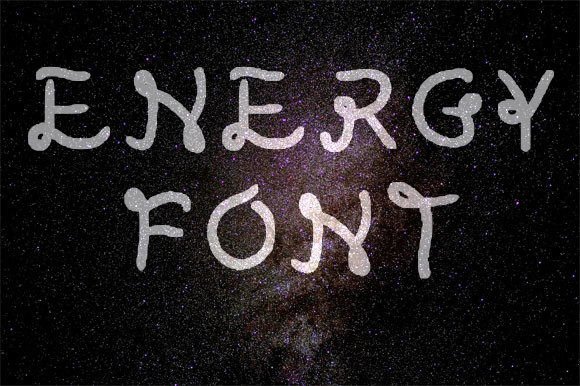
Introducing Energy Font: The Perfect Handwritten Touch for Your Creative Projects
Are you tired of using the same old fonts for your creative projects? Do you want to add a personal touch that sets your work apart from the rest? Look no further than Energy Font, an authentic and charming handwritten font that’s sure to bring a unique and creative vibe to your designs. In this article, we’ll take a closer look at Energy Font, its features, and how you can use it to take your projects to the next level.
What is Energy Font?
Energy Font is a beautifully crafted handwritten font that’s designed to add a personal note to your creative projects. With its authentic and charming style, this font is perfect for designers, crafters, and anyone looking to add a touch of personality to their work. Whether you’re creating a logo, a poster, a social media graphic, or a website, Energy Font is the perfect choice.
Key Features of Energy Font
So, what makes Energy Font so special? Here are some of its key features:
- Authentic and Charming Style: Energy Font has a unique and authentic style that’s reminiscent of handwritten notes and letters. Its charming and whimsical feel makes it perfect for creative projects that require a personal touch.
- Handwritten with Love: This font is carefully crafted with love and attention to detail, ensuring that every letter and character is unique and full of character.
- Easy to Read: Despite its handwritten style, Energy Font is easy to read and understand, making it perfect for body text and captions.
- Versatile: Energy Font is a versatile font that can be used for a wide range of creative projects, from logos and posters to social media graphics and websites.
How to Use Energy Font in Your Creative Projects
Using Energy Font in your creative projects is easy. Here are some ideas to get you started:
- Logos and Branding: Use Energy Font to create a unique and memorable logo for your business or brand.
- Posters and Flyers: Add a personal touch to your posters and flyers with Energy Font, perfect for promoting events, products, or services.
- Social Media Graphics: Use Energy Font to create eye-catching social media graphics that stand out from the crowd.
- Websites and Blogs: Add a touch of personality to your website or blog with Energy Font, perfect for headings, titles, and captions.
Tips for Using Energy Font Effectively
Here are some tips for using Energy Font effectively in your creative projects:
- Use it Sparingly: While Energy Font is a beautiful font, it’s best used sparingly to avoid overwhelming the reader. Use it for headings, titles, and captions, and pair it with a clean font for body text.
- Experiment with Colors: Energy Font looks great in a variety of colors, so don’t be afraid to experiment and find the perfect color scheme for your project.
- Pair it with Other Fonts: Energy Font can be paired with other fonts to create a unique and interesting contrast. Try pairing it with a clean sans-serif font for a modern look.
In conclusion, Energy Font is a beautiful and charming handwritten font that’s perfect for adding a personal touch to your creative projects. With its authentic and charming style, easy readability, and versatility, this font is sure to become a favorite among designers and crafters. So why not give it a try and see how it can elevate your designs to the next level?
Whether you’re a seasoned designer or a crafter looking for a unique font, Energy Font is a great choice. Its unique style and versatility make it perfect for a wide range of creative projects, from logos and posters to social media graphics and websites. So go ahead, download Energy Font, and add a personal note to your creative projects today!